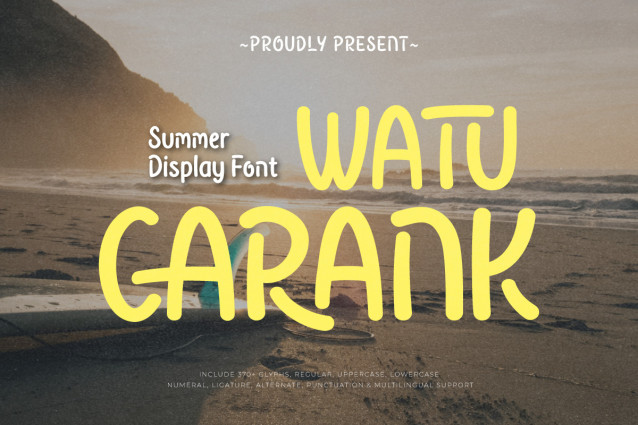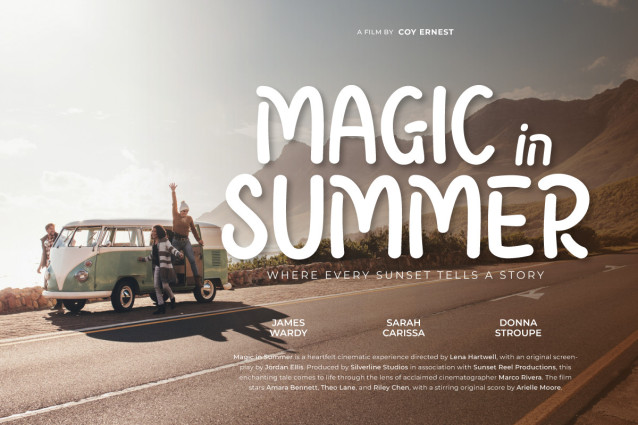
Watu Carank Font
Watu Carank Font, a cheerful display summer font that captures the warmth and vibrance of the tropical season. With its playful curves, breezy shapes, and relaxed personality, Watu Carank is perfect for everything from summer event posters, beach party flyers, travel blogs, to juice bar branding and vibrant product packaging.
This font brings a joyful energy that evokes palm trees, ocean waves, and sunny skies. Its casual and handwritten-inspired strokes add a touch of friendliness and fun, making your design feel approachable and full of life. Whether you’re designing for a summer campaign or crafting a vacation-themed visual, Watu Carank delivers the perfect splash of sunshine.